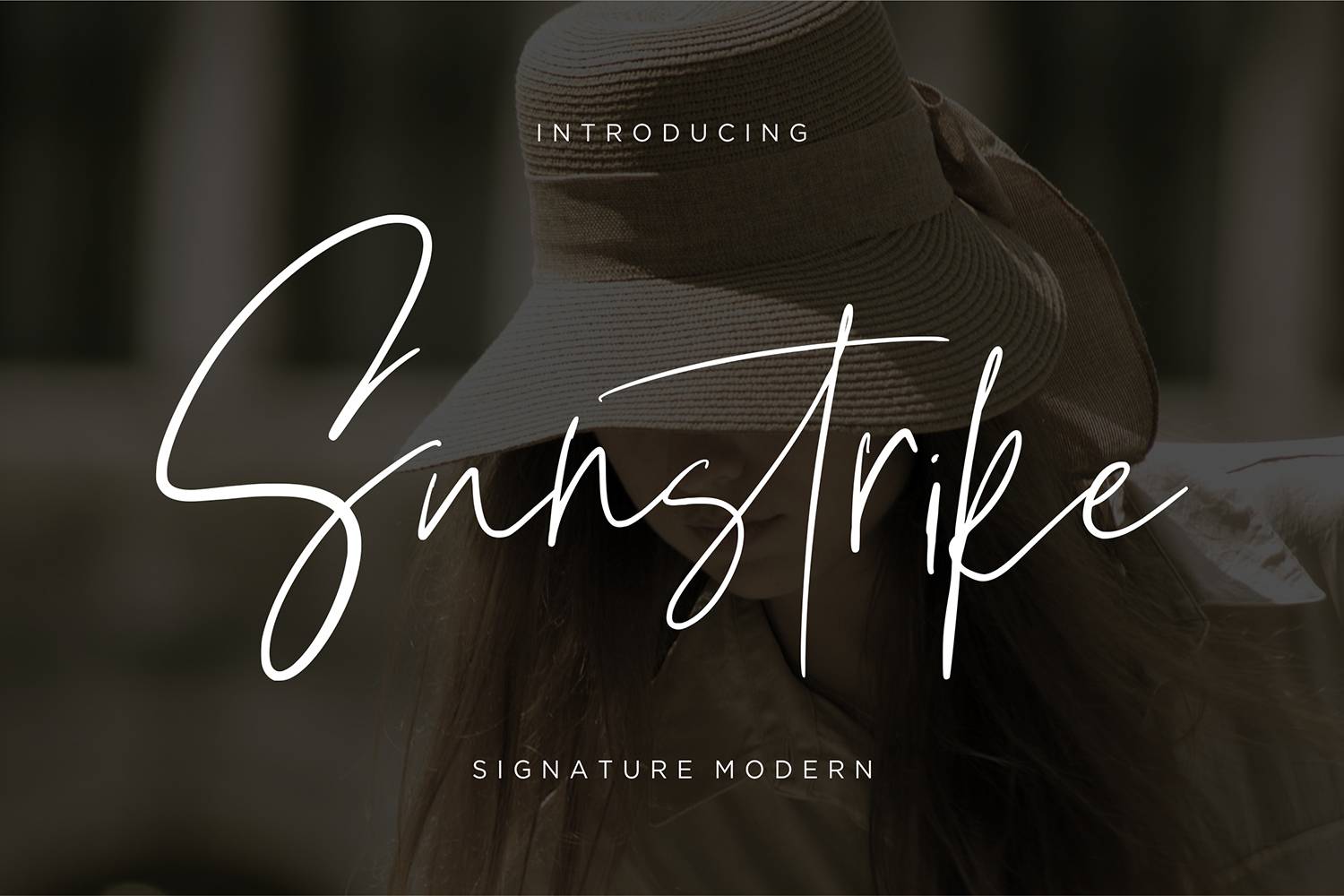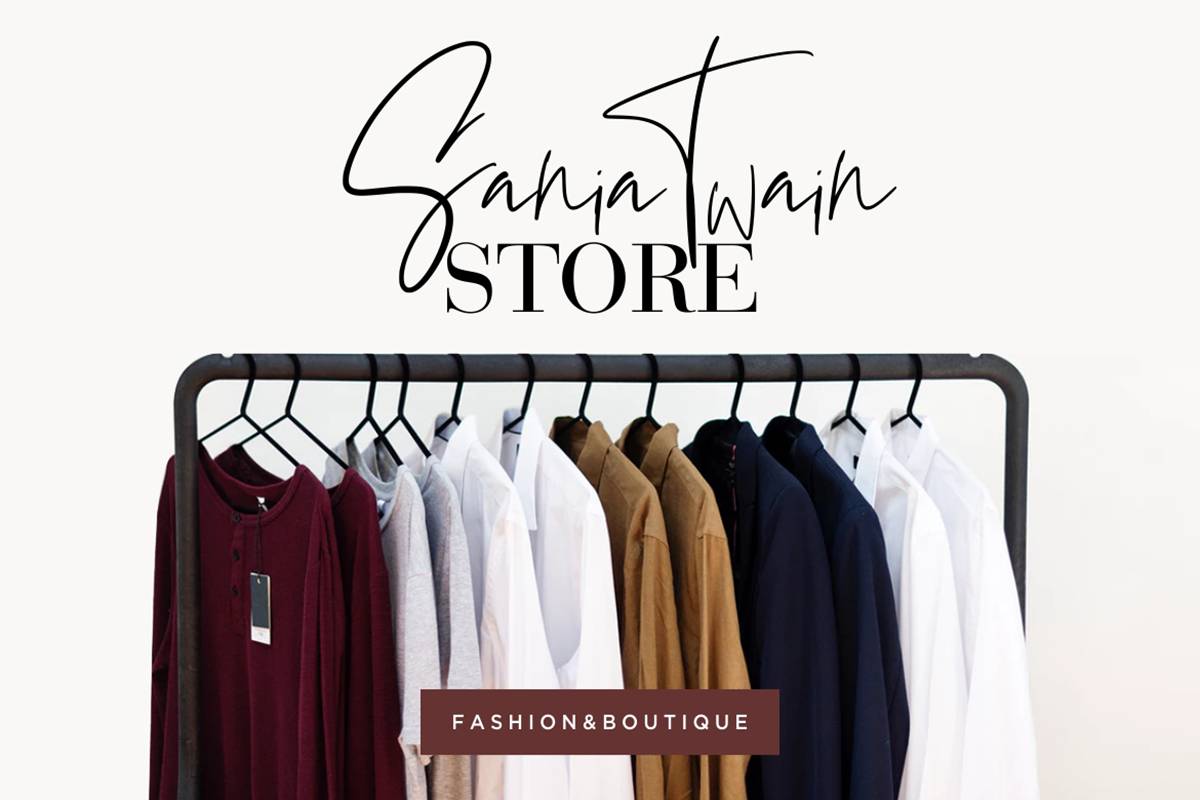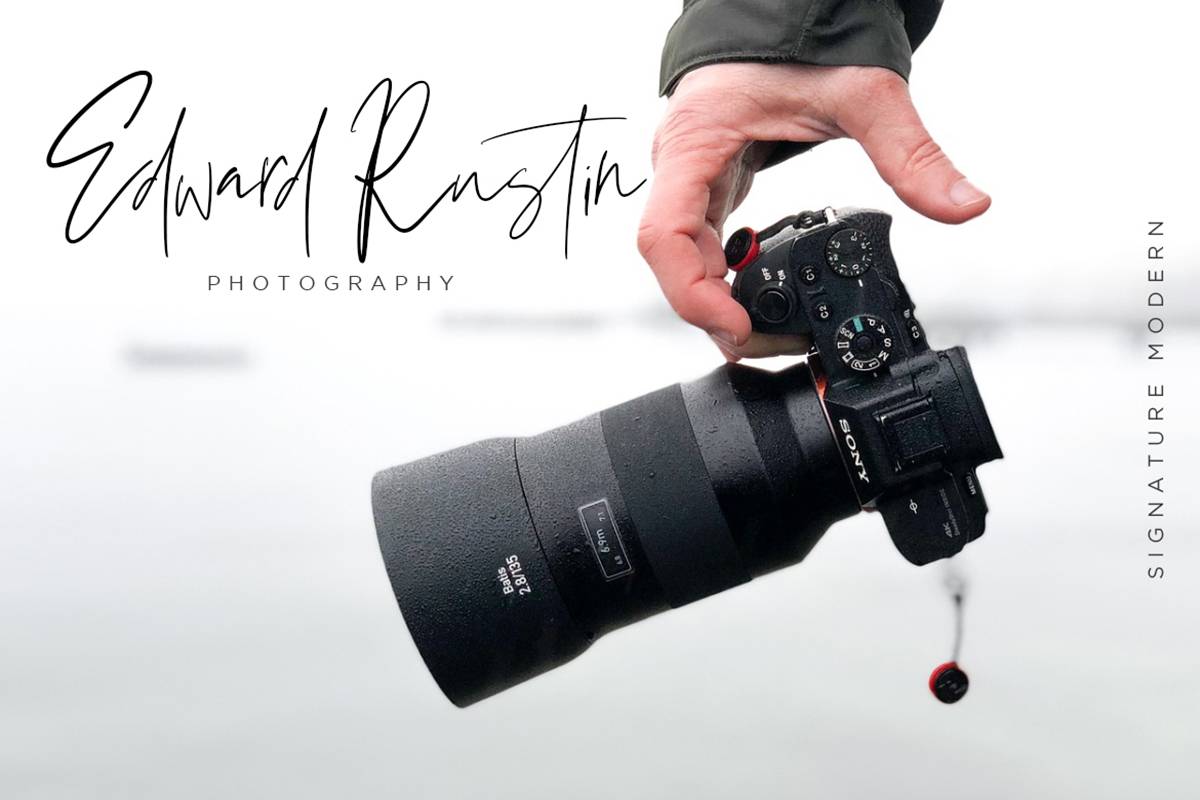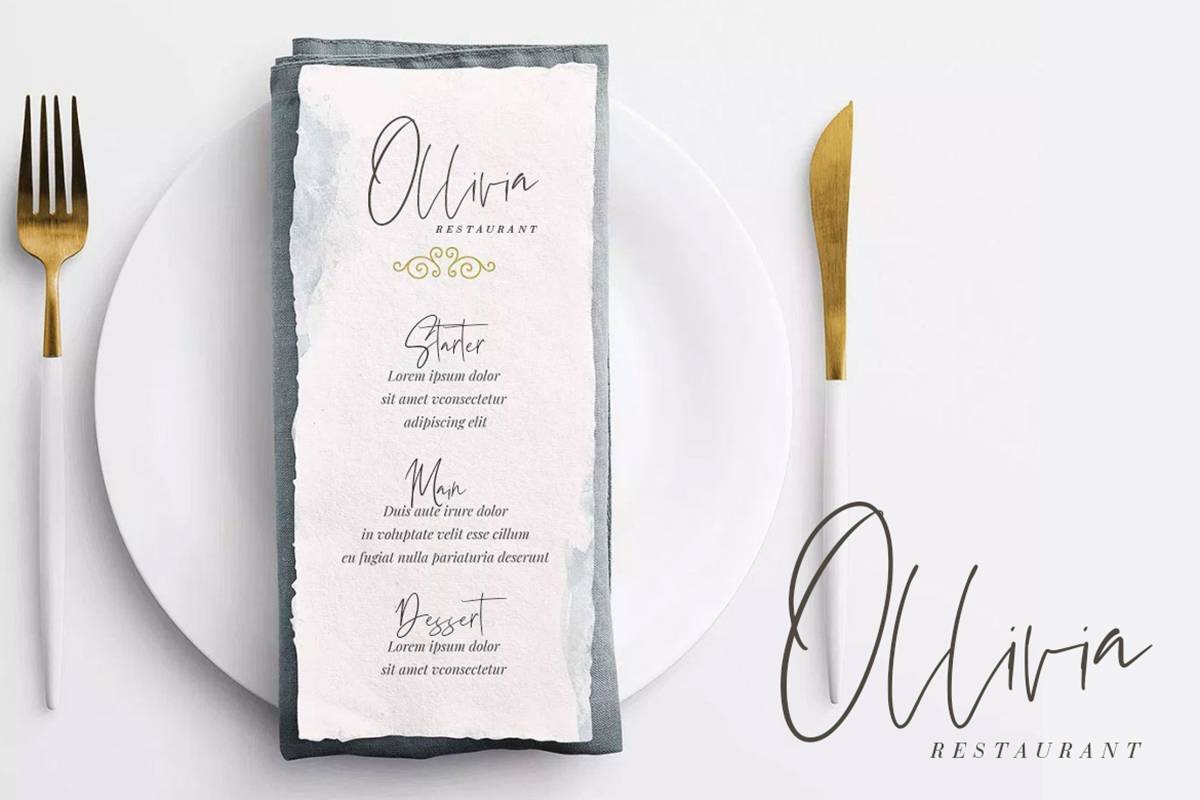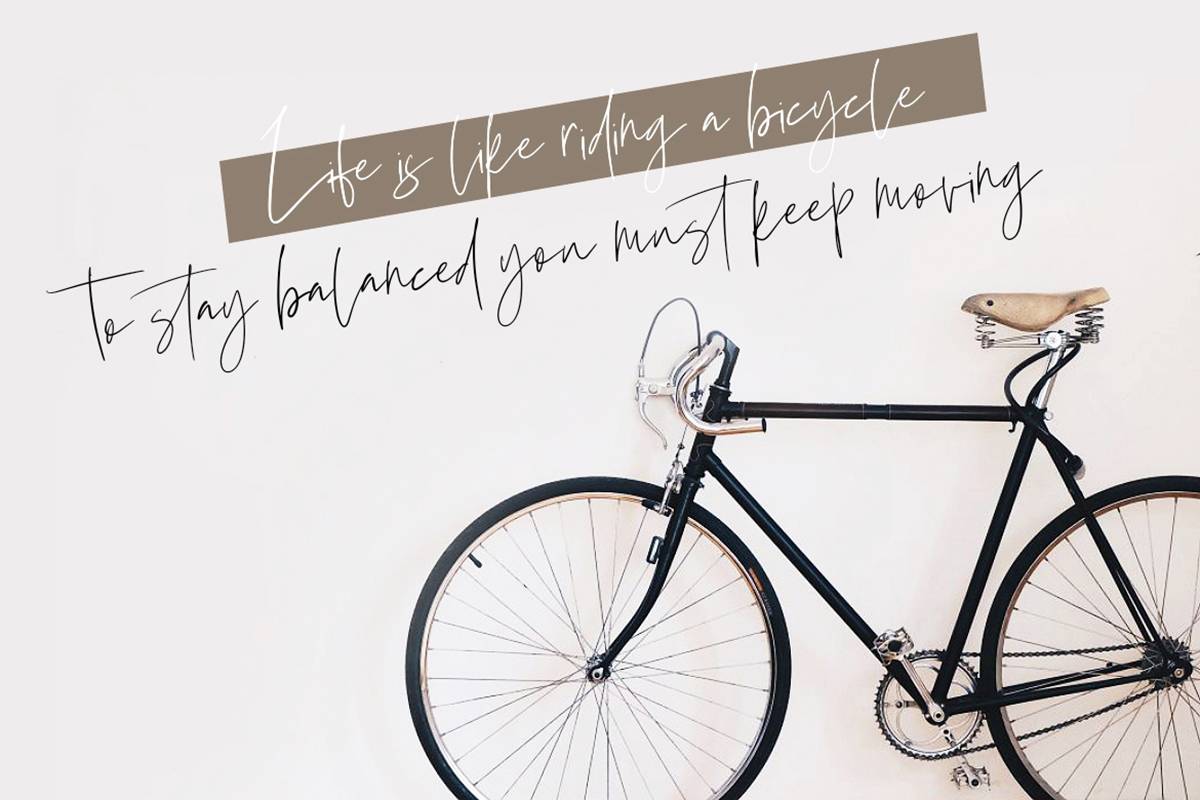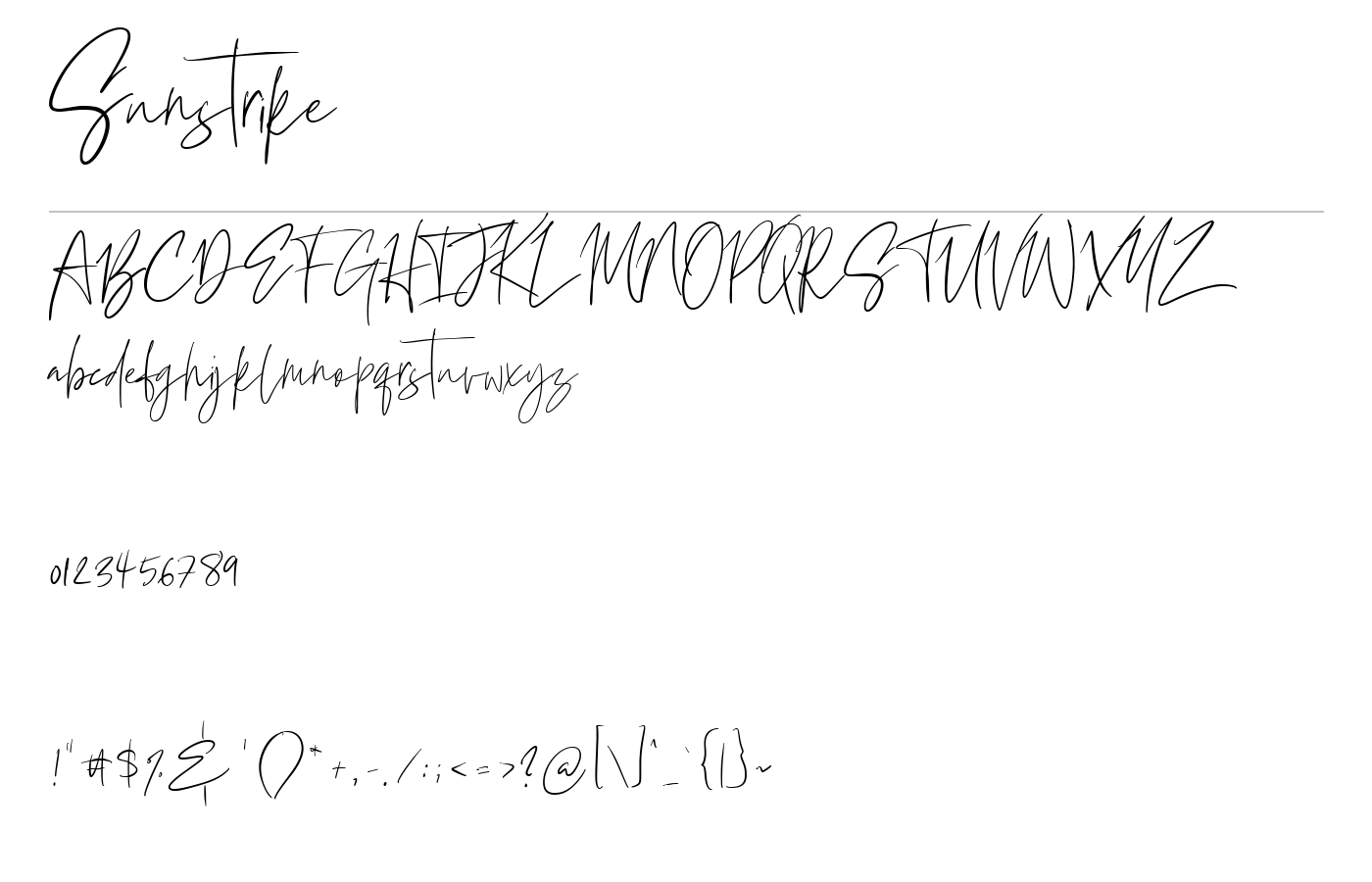
Suntrike is a delicate, handwritten script font with a light, airy feel created by its thin strokes and tall, slender letterforms. Its casual, flowing style makes it perfect for adding a personal, artistic touch to branding, invitations, and creative projects that want to convey elegance with a modern, informal vibe. This font works best in display uses where its unique character and expressive lines can truly shine.
Suntrike Font
About Suntrike Font